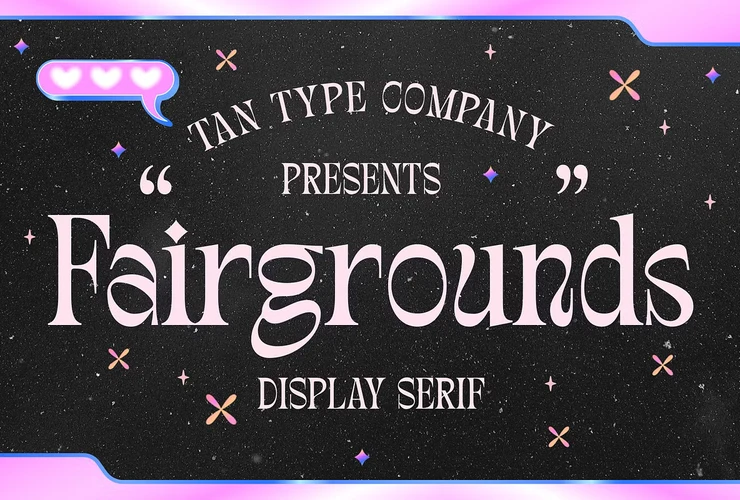
Elevate Your Design with TAN – FAIRGROUNDS: A Playful Twist on Classic Serif
Introducing TAN – FAIRGROUNDS, a unique serif font that seamlessly blends classic elegance with a touch of whimsy. Created by Tan Type Company, this font is perfect for designers looking to add a fun, yet sophisticated vibe to their projects. Whether you’re working on branding, editorial design, or creative posters, TAN – FAIRGROUNDS offers a refreshing twist that will make your work stand out.
Why Choose TAN – FAIRGROUNDS?
TAN – FAIRGROUNDS is more than just a serif font—it’s a tool for creative expression. Its playful curves and classic form make it versatile enough to be used in a variety of contexts, from corporate branding to personal projects. With support for multiple languages and future updates, this font ensures that your designs will remain fresh and relevant.
Key Features of TAN – FAIRGROUNDS:
Unique Serif Design: A blend of classic and playful elements, perfect for adding character to your projects.
Versatile Application: Ideal for branding, editorial design, posters, and more, making your designs memorable.
Multilingual Support: Supports a wide range of languages, ensuring your designs are accessible to a global audience.
How to Use TAN – FAIRGROUNDS
TAN – FAIRGROUNDS is perfect for those who want to create designs with a unique, playful edge. Use it in:
Branding: Create logos and visual identities that are both classic and fun.
Editorial Design: Enhance your layouts with a serif font that adds character and readability.
Posters and Invitations: Make your event materials stand out with a font that’s both elegant and engaging.
Web Design: Add a touch of sophistication to your websites with TAN – FAIRGROUNDS’ web font versions.
TAN – FAIRGROUNDS by Tan Type Company offers a refreshing take on the classic serif font. Its playful twist adds a unique charm to any design project, making it a must-have for creatives looking to make a statement. With its versatility, multilingual support, and ongoing updates, TAN – FAIRGROUNDS is a valuable addition to any designer’s toolkit.